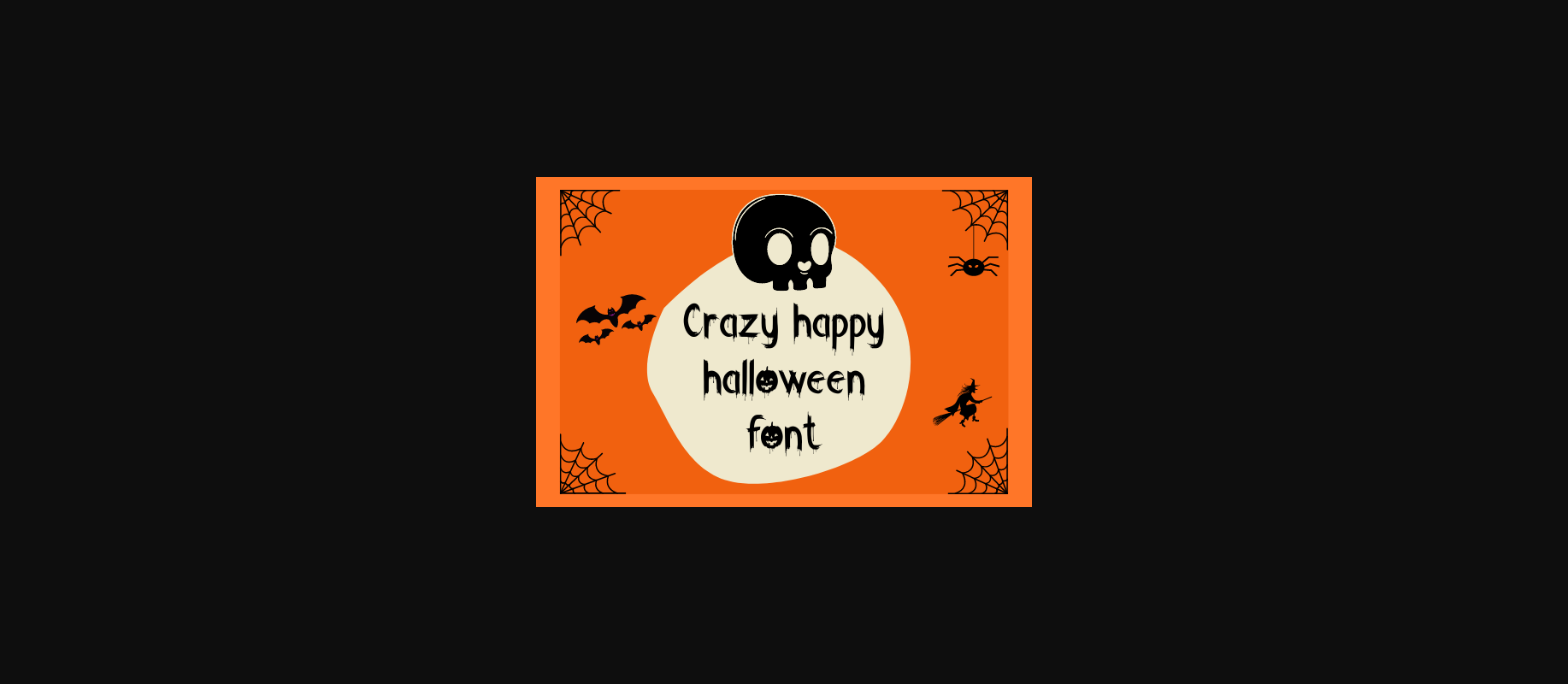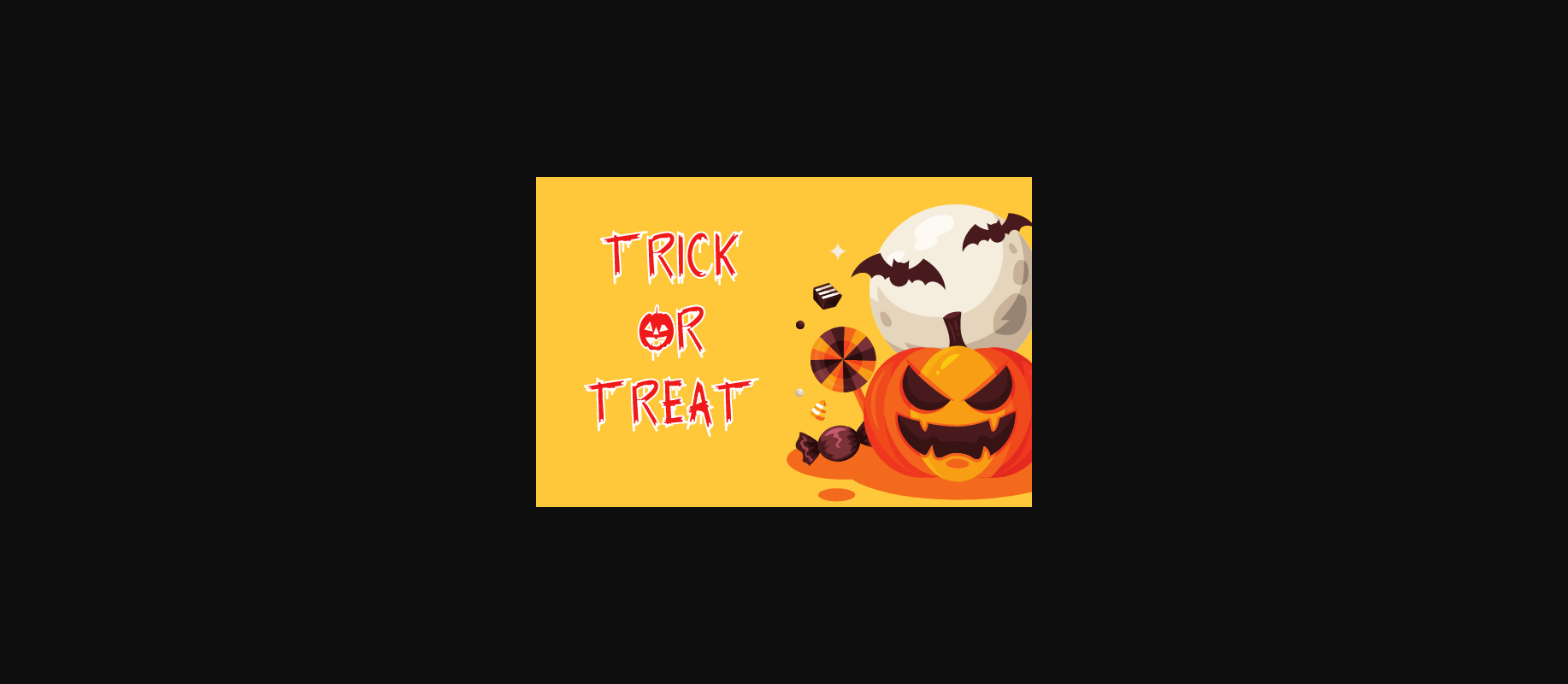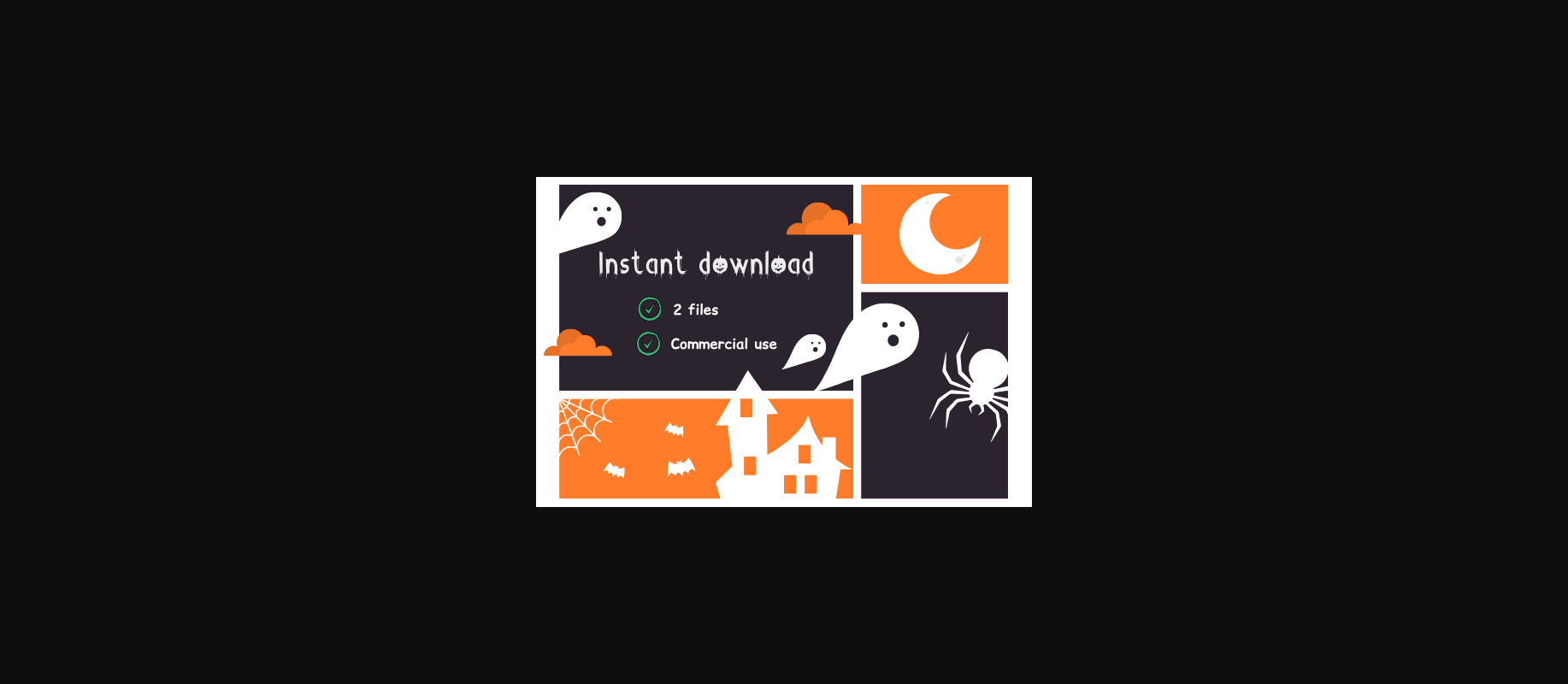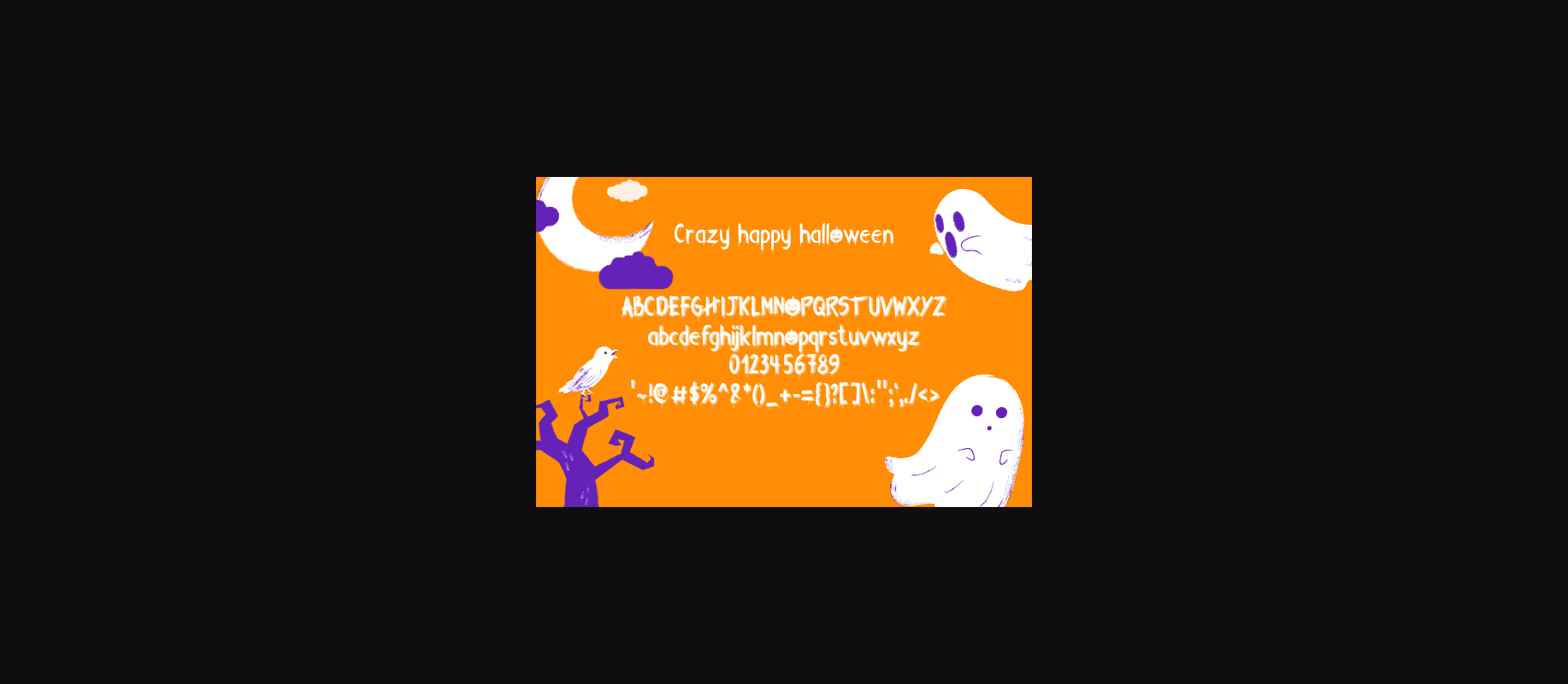
HomeDecorative FontsCrazy Happy Halloween Font Decorative Fonts Crazy Happy Halloween Font FacebookXPinterestWhatsApp 1 of 6 ... Crazy Happy Halloween Font Poster 2... Crazy Happy Halloween Font Poster 3... Crazy Happy Halloween Font Poster 4... Crazy Happy Halloween Font Poster 5... Crazy Happy Halloween Font Poster 6... About Crazy Happy Halloween Font Crazy Happy Halloween is a cool, fun and friendly decorative font. Add it to each of your October design ideas and make your creations look out of this world. DOWNLOAD NOW People also explored Handlist Font Lovesick Font Barbie Chubby Font Babe Font Green Leaf Font Fresh Milk Font Shel Fodor Script Font Rostagia Font Inkhead Font 516 0 TagsCrazy Happy Halloween Font Previous articleSkull Kidz FontNext articleHalloween Island Font LEAVE A REPLY Cancel reply Comment: Please enter your comment! Name:* Please enter your name here Email:* You have entered an incorrect email address! Please enter your email address here Website: Save my name, email, and website in this browser for the next time I comment. Personal Use Free Capellen Personal Use Free Read more about this font Waturaden Personal Use Free Read more about this font Shnobel Personal Use Free Read more about this font Zero Hour Personal Use Free Read more about this font BLOG How to Install and Use Fonts on Windows, macOS, and Web Projects How to Install and Use Fonts on Windows, macOS, and Web Projects Fonts are a crucial part of design and branding. Whether you’re designing a... Free Fonts Risk: Why Free Fonts Can Be Dangerous for Designers Using Fonts in Digital Marketing: Tips to Strengthen Your Brand Identity Transform Your Website: Elevate Your Typography with 7 Best Web Font Generators